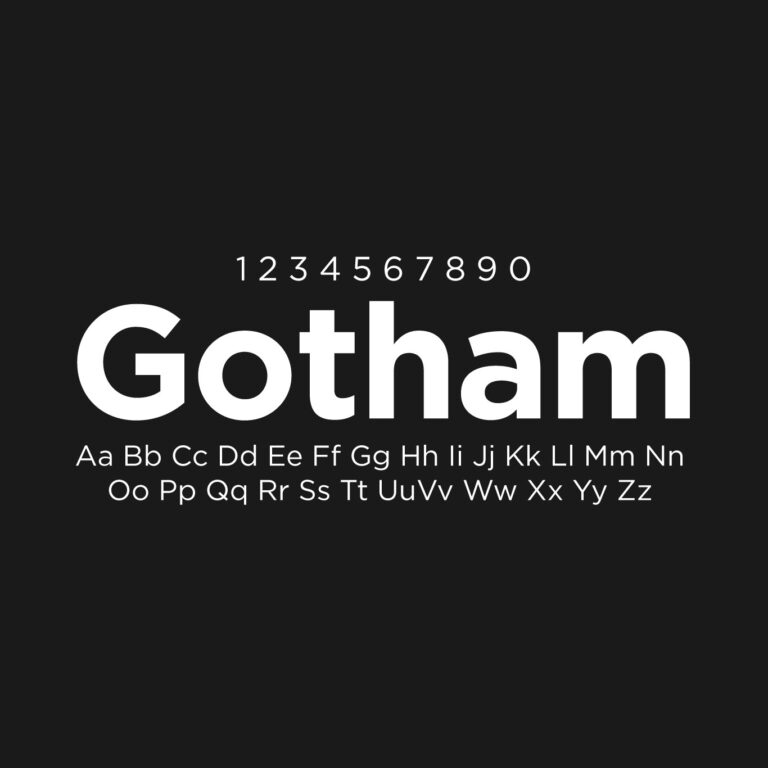
Gotham is a geometric sans-serif typeface designed by Tobias Frere-Jones with Jesse Ragan and released by Hoefler & Co. The family is known for its clean proportions, strong capitals and architectural New York signage influence.
The main Gotham family includes Thin, XLight, Light, Book, Medium, Bold, Black and Ultra weights with matching italics. The Gotham Rounded set includes Light, Book, Medium and Bold, also with matching italics.
Gotham was originally commissioned for GQ magazine. Tobias Frere-Jones based the design on lettering found across New York City, especially mid-century signs and architectural lettering.
Gotham font is geometric but not sterile. Gotham feels solid, direct and structural with wide letters, a large x-height and clean curves. It became especially recognizable through major identity systems, campaign graphics and public signage.
Gotham Rounded keeps the same basic skeleton but softens the stroke endings. That gives the rounded styles a less formal and more approachable tone than the main family.
Gotham vs Gotham Rounded
The main family has sharper terminals and a more serious tone. Gotham Rounded uses softened terminals while keeping the same general proportions. It is useful when you want the same Gotham structure with a friendlier finish.